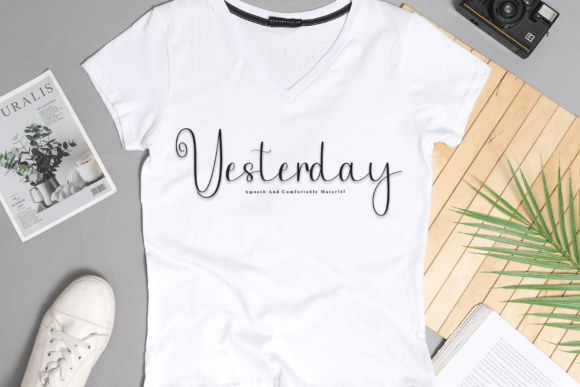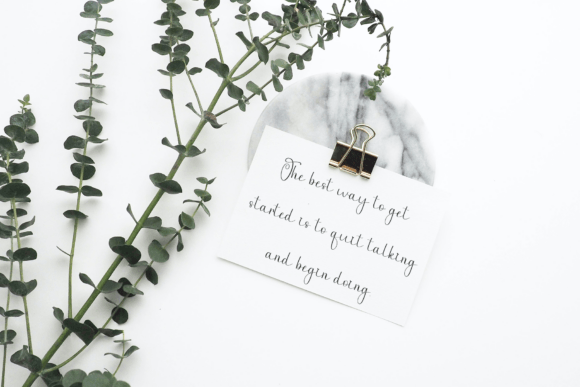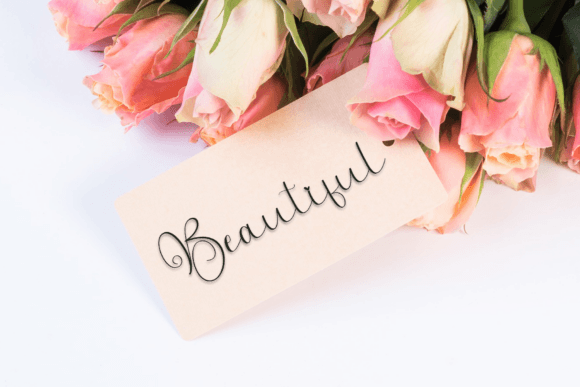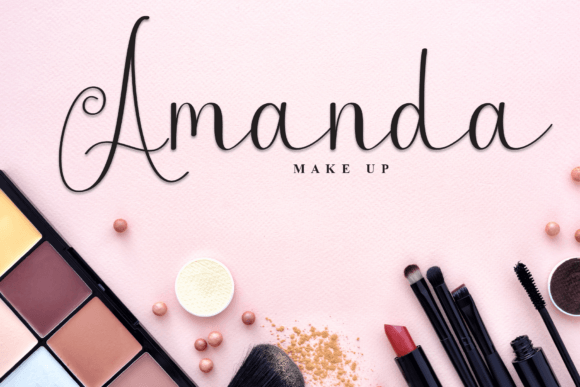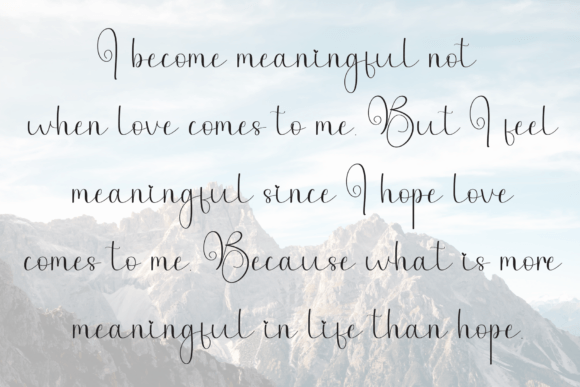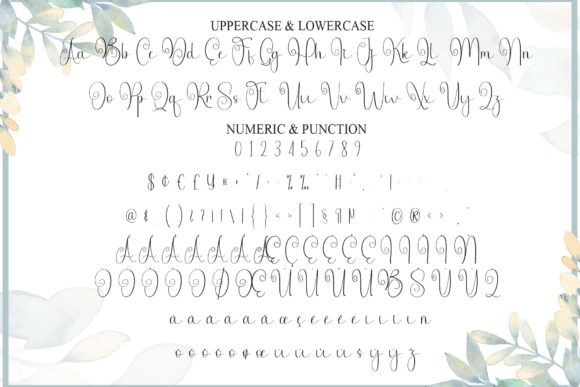
Introducing Alphabet Font: The Charming Handwritten Display Font
Have you ever been working on a design project, and suddenly, you’re stuck on finding the perfect font? I recall a particular wedding invitation project where I struggled to find a font that conveyed the warmth and playfulness my client desired. That’s when I discovered Alphabet Font, a charming and amicable handwritten display font that effortlessly infuses your designs with a delightful touch.
The Perfect Font for Your Design Projects
Alphabet Font is perfectly crafted for penning down endearing wedding invitations, heartfelt cards, or any design project that could benefit from a sprinkle of fun. Its sweet and friendly personality ensures your creations leave a lasting and joyful impression. Here are some reasons why I fell in love with this font:
- ✨ Adorable and lively, perfect for designs that require a playful touch
- ✅ Easy to read and understand, making it suitable for various design projects
- 💕 Emotionally engaging, conveying warmth and friendliness
- 🎉 Highly versatile, suitable for various design applications, from digital to print
While Alphabet Font has stolen my heart, it’s essential to mention a few quirks:
- ⚠️ Limited character set: Alphabet Font might not have all the special characters you need, so make sure to check the font’s capabilities before using it for a project.
- 🤔 Not suitable for body text: Due to its playful nature, Alphabet Font might not be the best choice for lengthy paragraphs or body text.
Alphabet Font was designed with the intention of creating a friendly and approachable font that could bring joy to various design projects. The designer aimed to craft a font that would be perfect for wedding invitations, cards, and other designs that require a personal touch. With its sweet and lively personality, Alphabet Font is sure to become a favorite among designers and crafters.
| What is Alphabet Font best suited for? | Alphabet Font is perfect for designs that require a playful and friendly touch, such as wedding invitations, cards, and other personal projects. |
| Is Alphabet Font suitable for body text? | No, Alphabet Font is not recommended for lengthy paragraphs or body text due to its playful nature. |